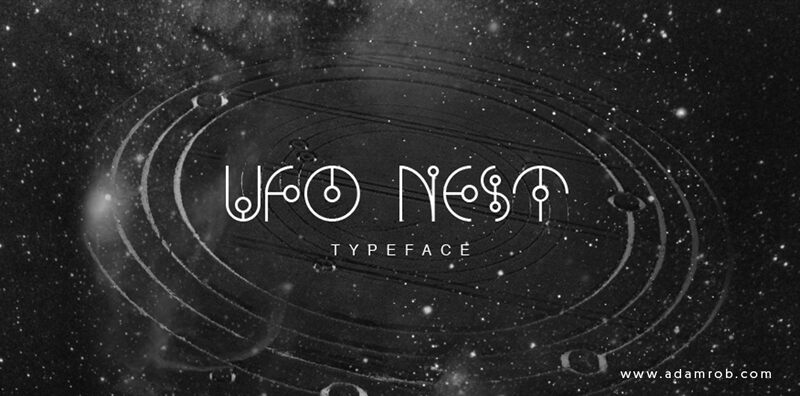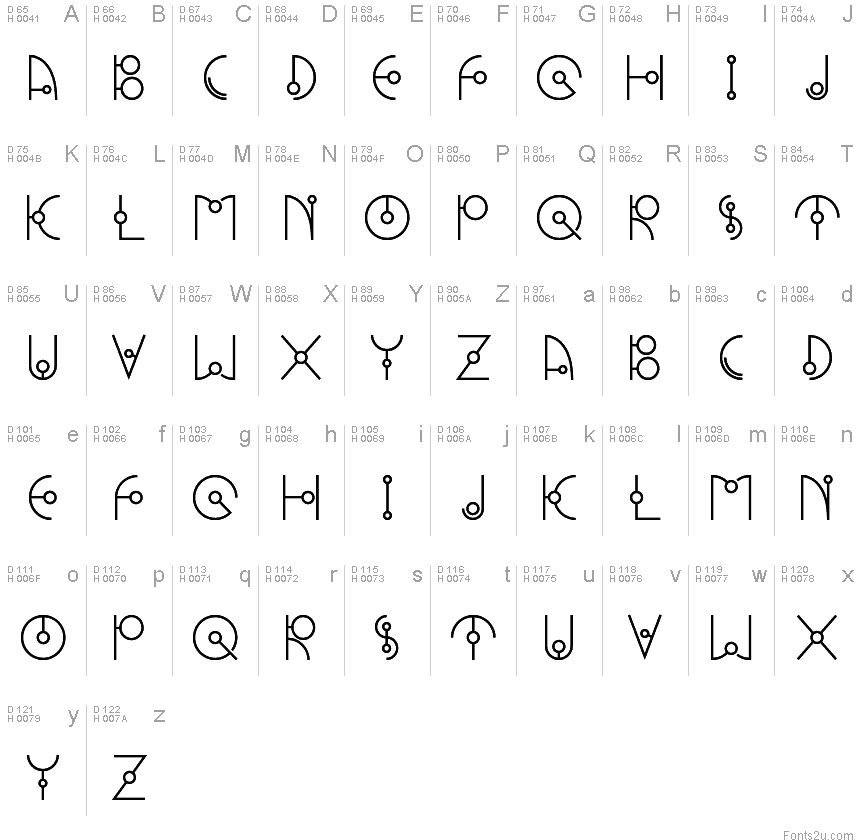
UFONEST
About this font:
UFO NEST is a font based around the interesting forms and figures of crop circles. Mainly focusing around the circler shapes and how these can be used to create a typeface.
UFO NEST